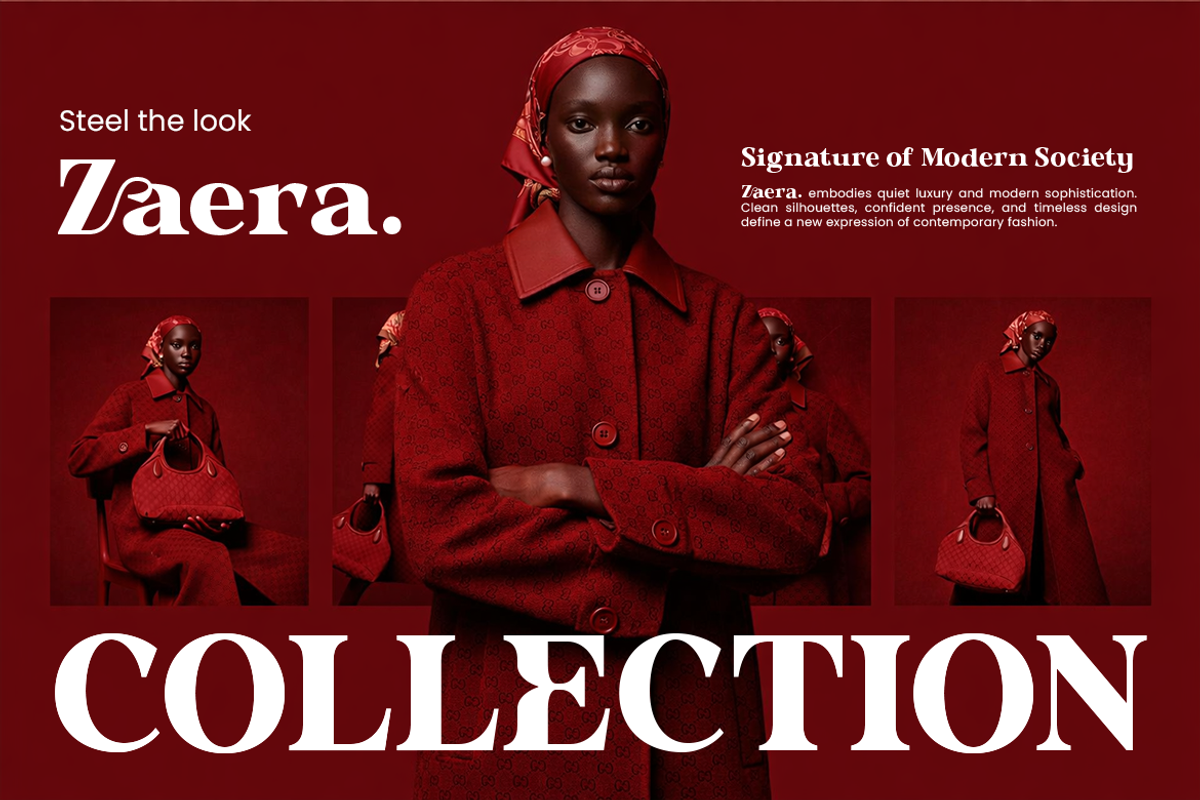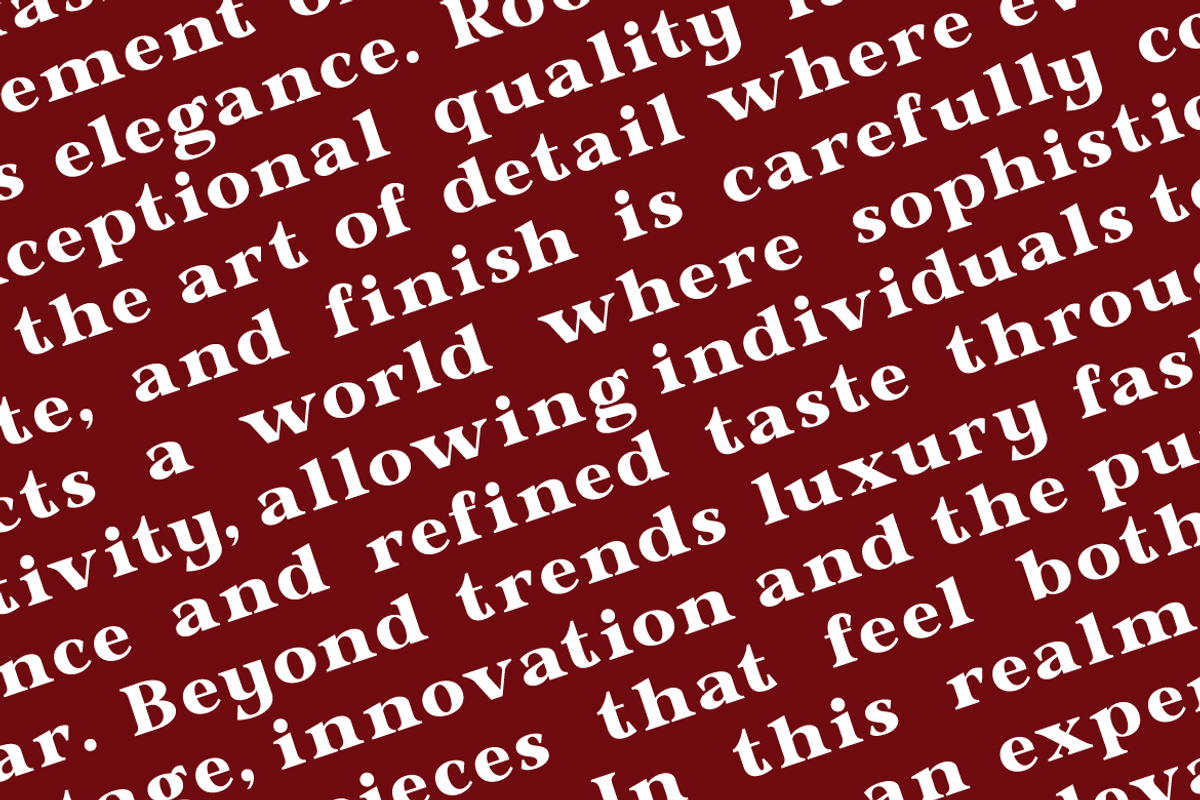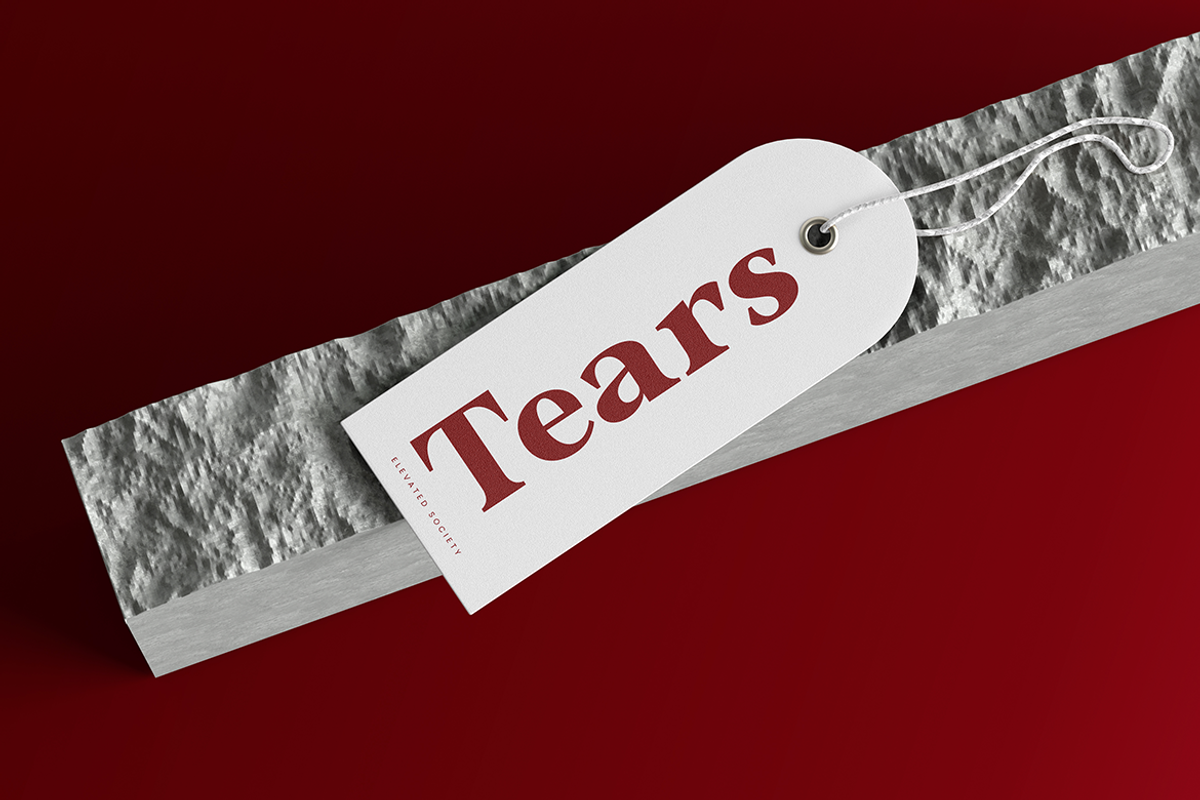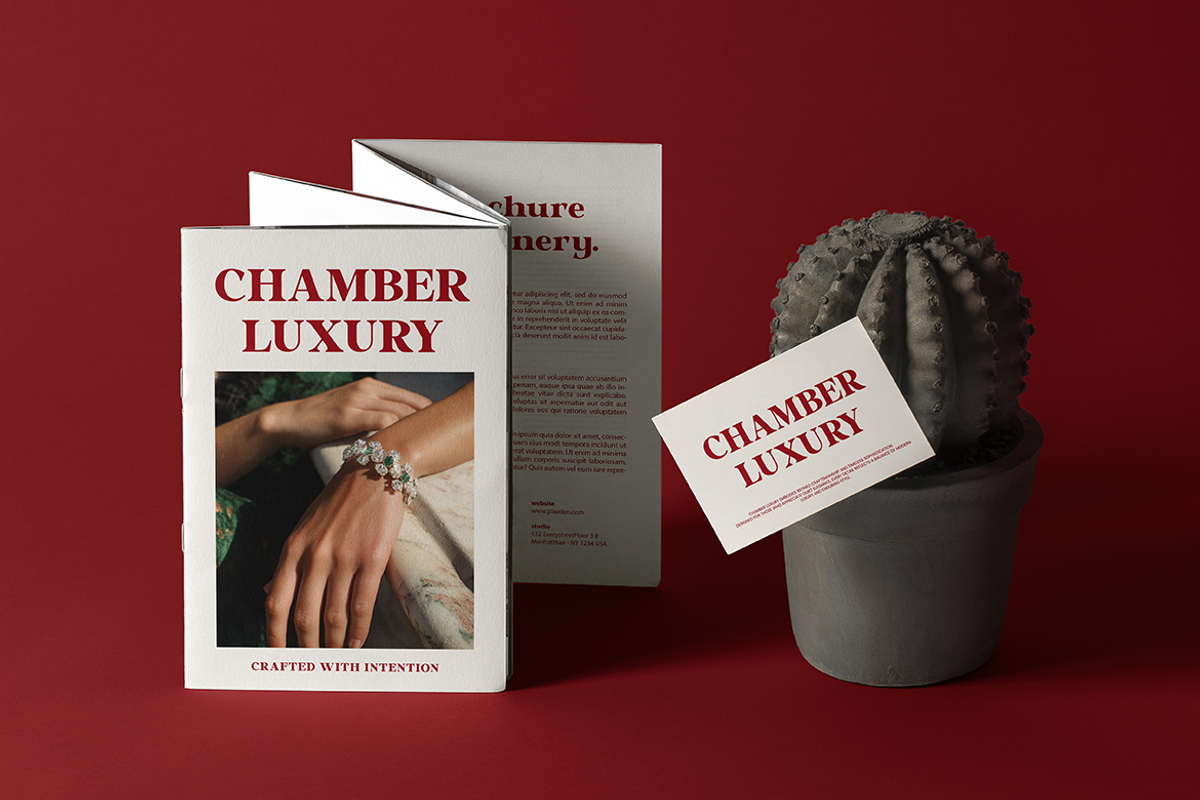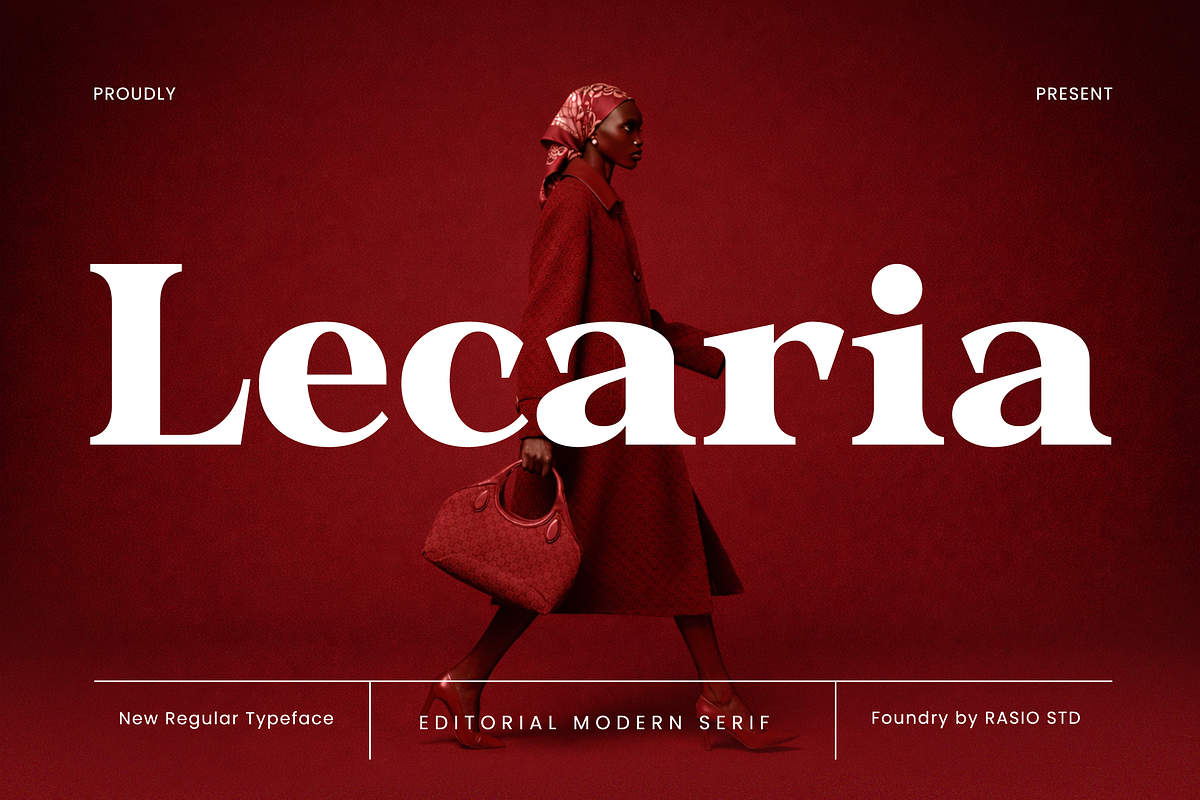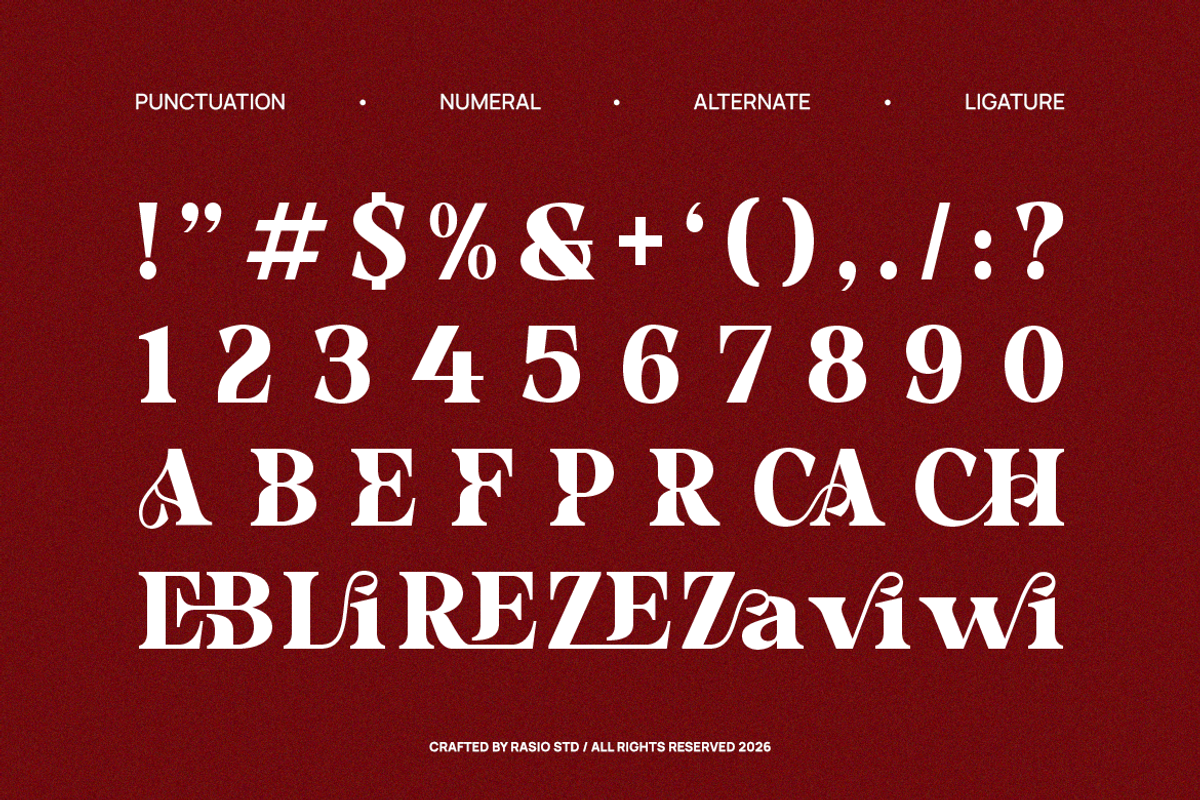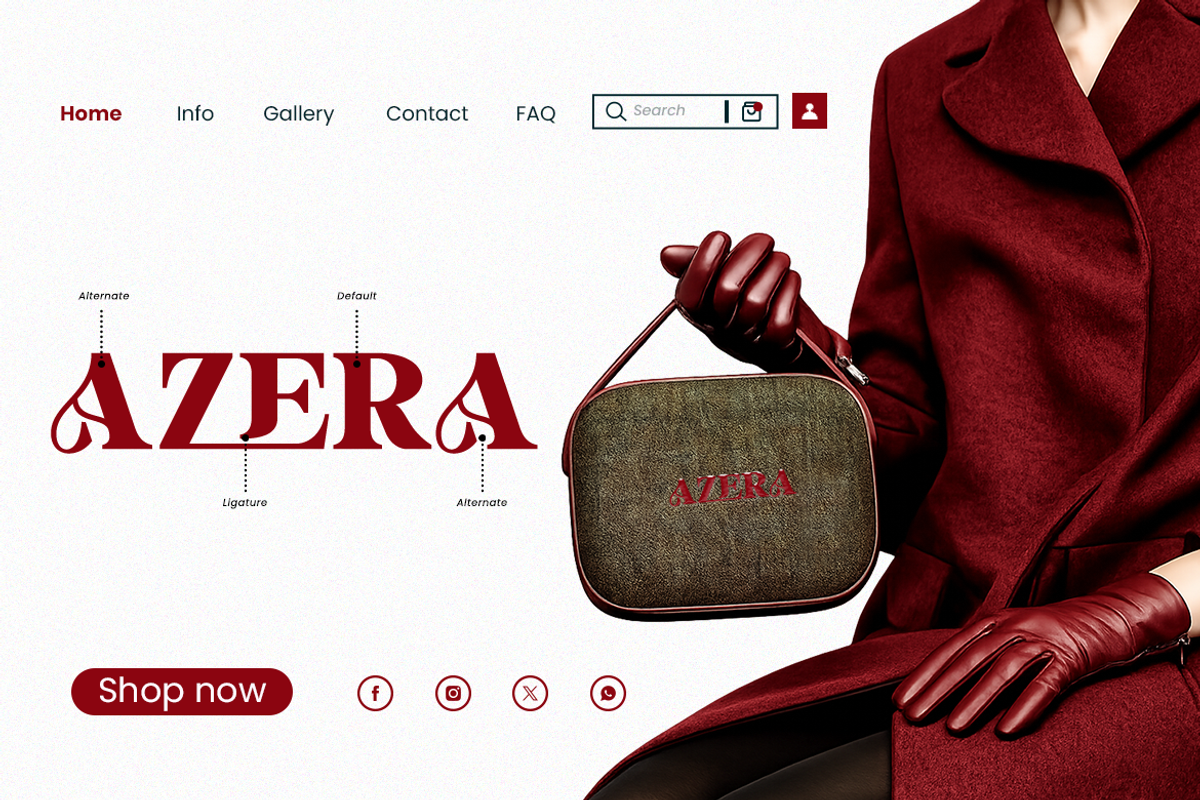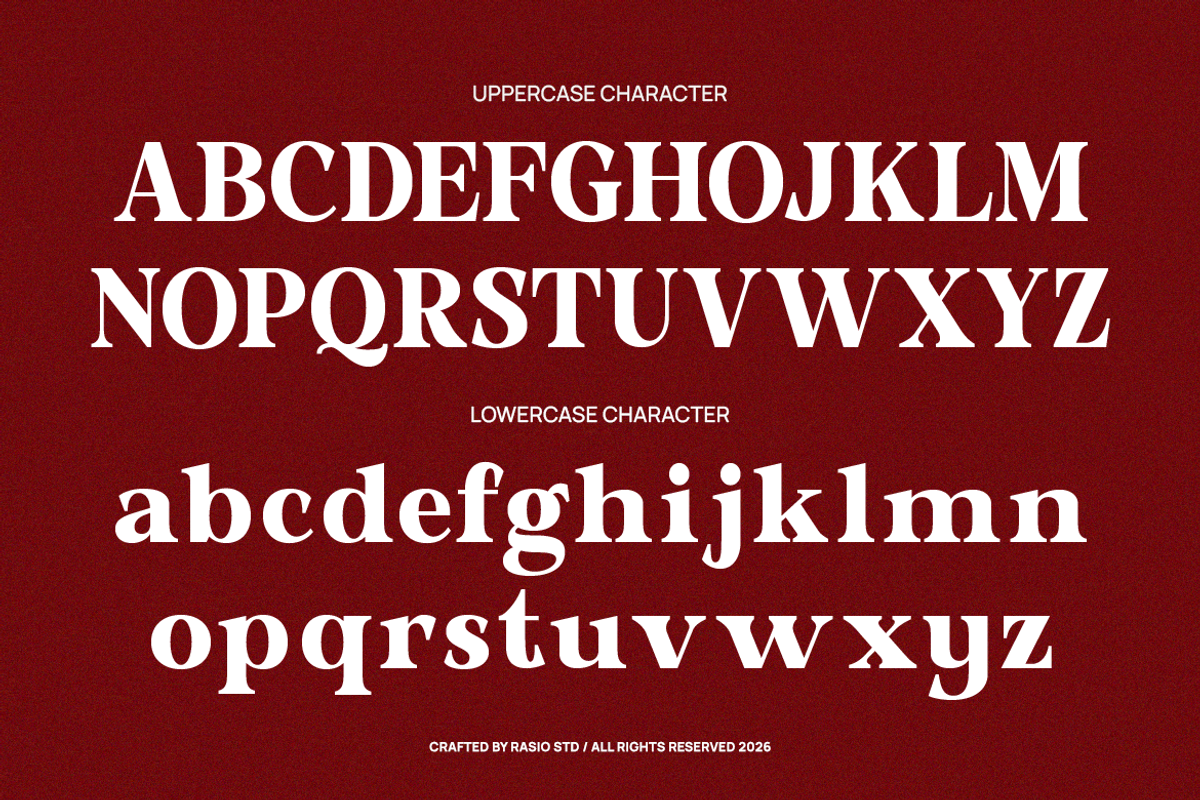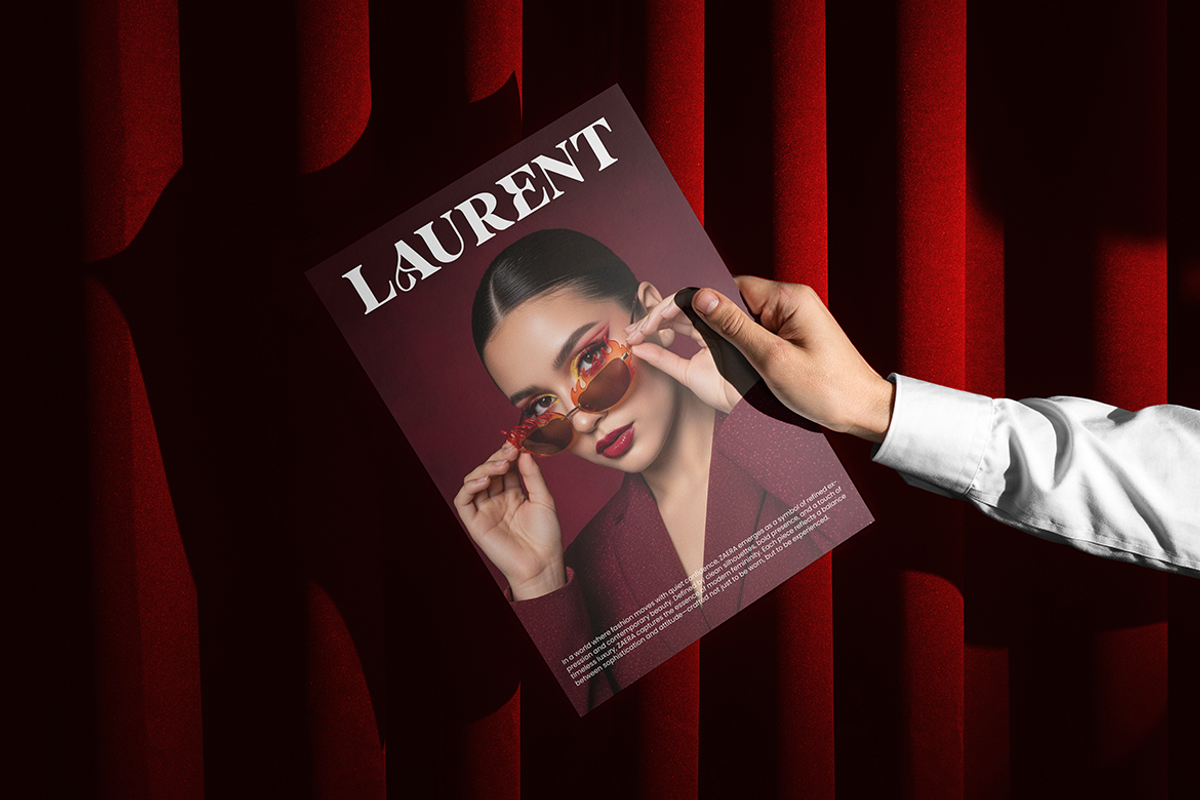
Lecaria Editorial Modern Serif Font
Lecaria is a modern editorial serif font designed with a refined balance of elegance and contemporary structure. It features high-contrast strokes, sharp serif details, and stylish alternates that elevate typographic compositions with a premium feel. The font includes uppercase, lowercase, numerals, punctuation. Carefully crafted spacing and proportions make Lecaria highly readable while maintaining a strong visual identity for display and editorial use.
Lecaria is highly relevant for modern editorial and luxury-focused design projects that require a sophisticated and professional tone. It works exceptionally well for fashion branding, magazine layouts, product packaging, and high-end marketing materials. The refined serif details and strong contrast make it ideal for headlines, logos, and visual storytelling, delivering a polished and contemporary aesthetic across both print and digital platforms.
- High-contrast serif design with refined thick–thin transitions
- Elegant editorial structure inspired by modern fashion typography
- Sharp yet graceful serifs that enhance sophistication and clarity
- Distinctive character details with subtle luxury-driven proportions
- Balanced spacing optimized for impactful headlines and editorial layouts
- Luxury brand identity systems with an elegant and high-end tone
- Fashion editorials, magazines, and sophisticated print layouts
- Beauty, skincare, and premium product packaging design
- High-end logos and branding for boutiques and lifestyle brands
- Social media visuals and campaigns with a refined editorial aesthetic
Define elegance with Lecaria, a modern serif crafted for high-end visual storytelling